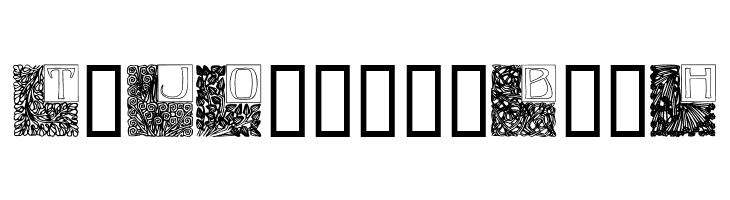
An ornamental Art Nouveau-inspired font with intricate floral patterns.
A decorative Art Nouveau font with ornate, framed letters featuring floral motifs.
An ornate, decorative font inspired by Art Nouveau, featuring intricate floral motifs.
A decorative Art Nouveau font with intricate floral and organic motifs.
An Art Nouveau-inspired decorative font with intricate, ornamental designs.